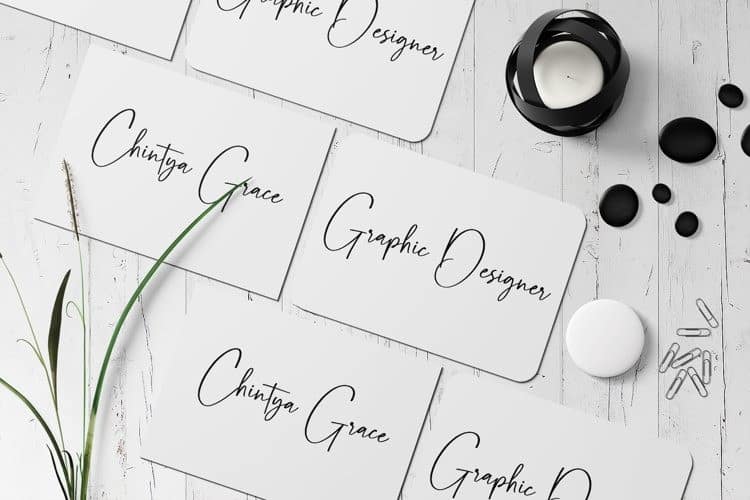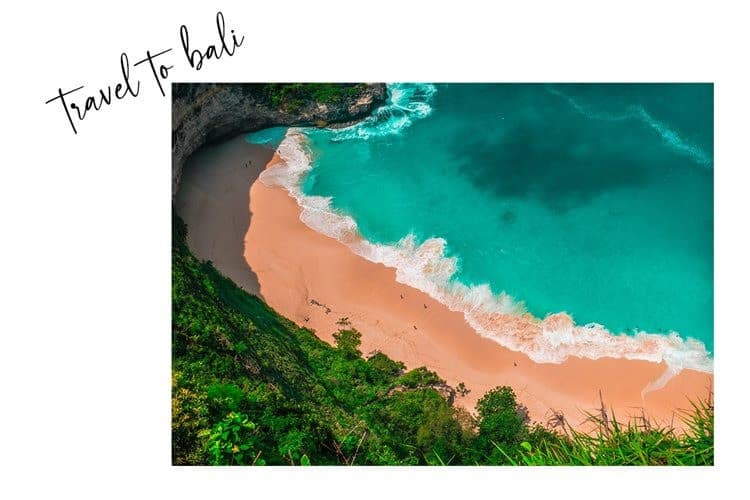
Rastyin Handwritten Font
Rastyin Handwritten Font is handmade signature style font with stunning characters. It’s designed and shared by Dav studio. It’s a handwritten font with a natural sketch. Ideal for logos, name tag, handwritten quotes, product packaging, merchandise, social media & greeting cards. It contains a full set of lower & uppercase letters, a large range of punctuation, numerals, and multilingual support.